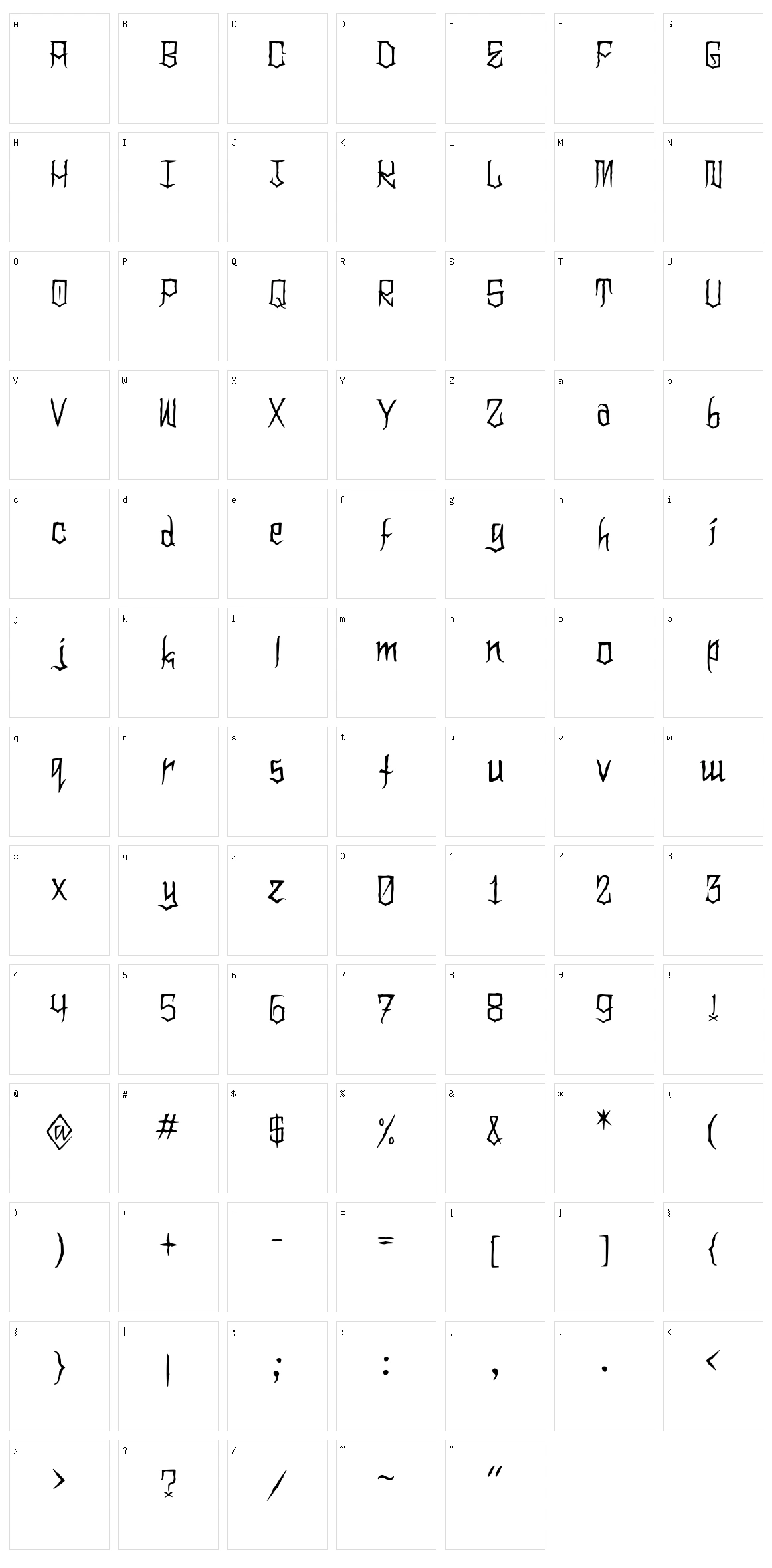
The free font Clownoween is carefully designed by Clown from Time Is Too Short Crew and Gordon from One Truth Tattoo, showcasing a thoughtful balance of creativity and usability and falls under the Horror font style. When you download the ZIP file, it contains only 17.59 KB of font files, making it lightweight and quick to download. Please review the license details below to understand permitted usage and distribution rights. If license information is not available, we recommend using this font for personal projects only or contacting the author directly for commercial usage permissions.